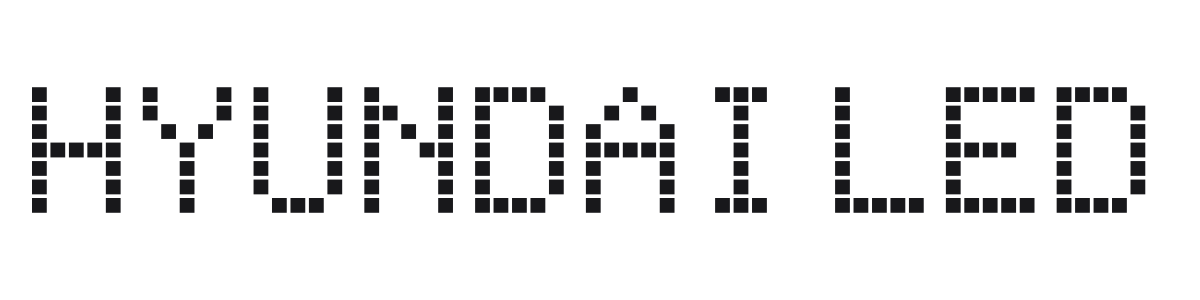
Hyundai LED
Hyundai LED is a bold dot-matrix font built from a grid of small squares, directly referencing the LED alphanumeric displays found on scoreboards, dashboards, and electronic signage. Every character is constructed from uniform dots with no stroke contrast, giving it a strict, machine-made quality. It works best at large sizes where the dot grid reads clearly as intentional texture rather than low resolution.